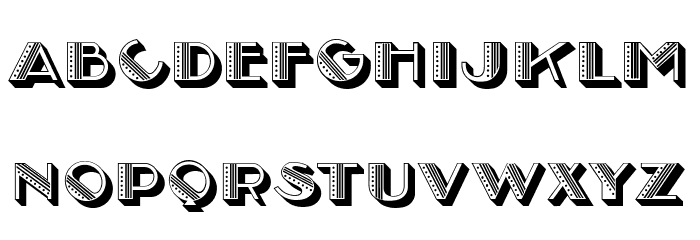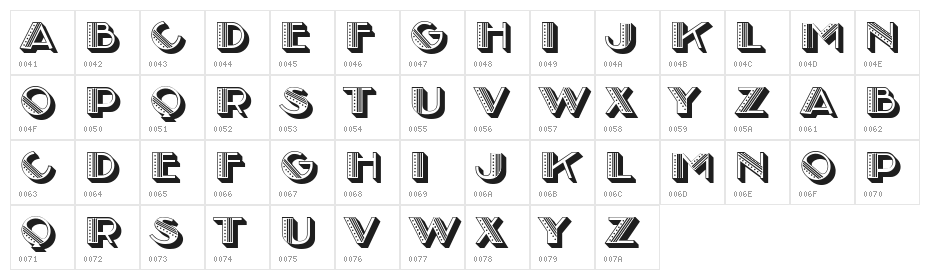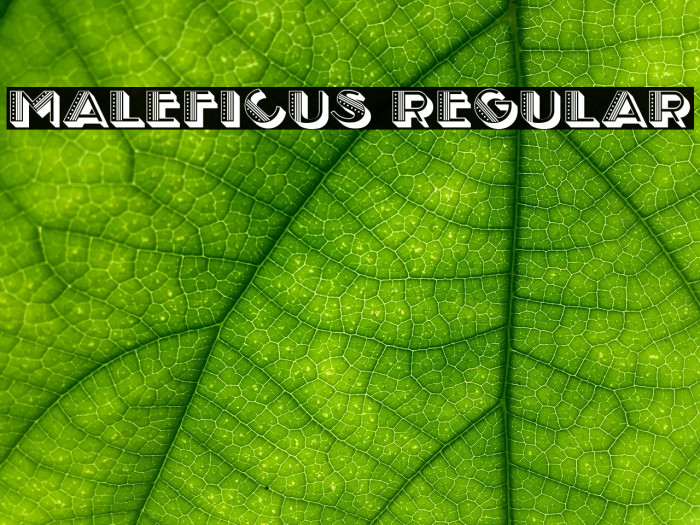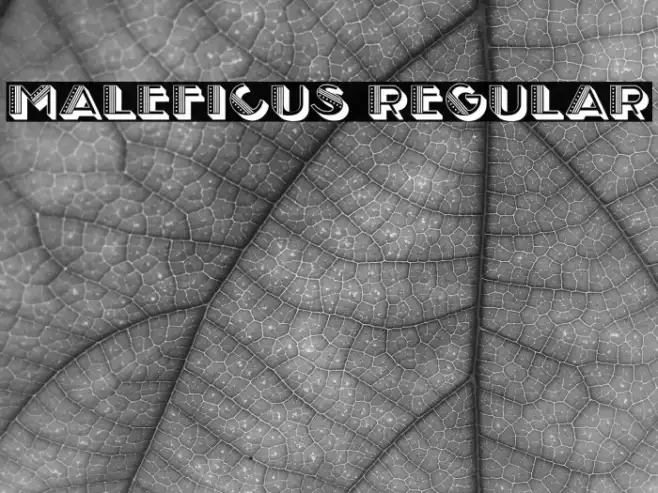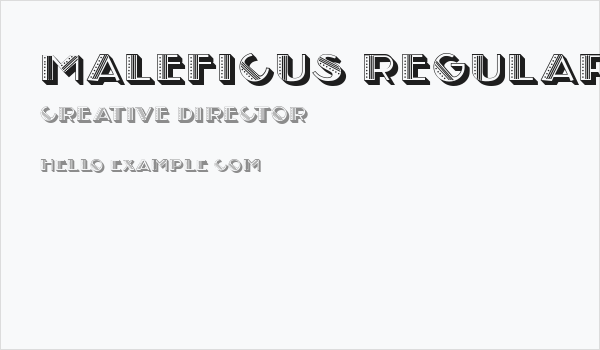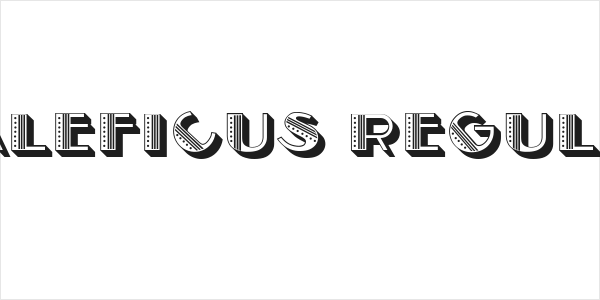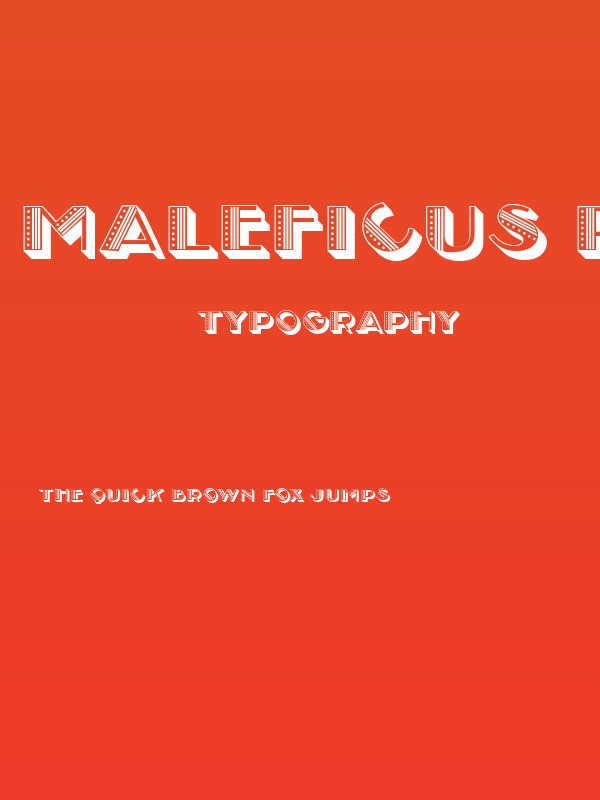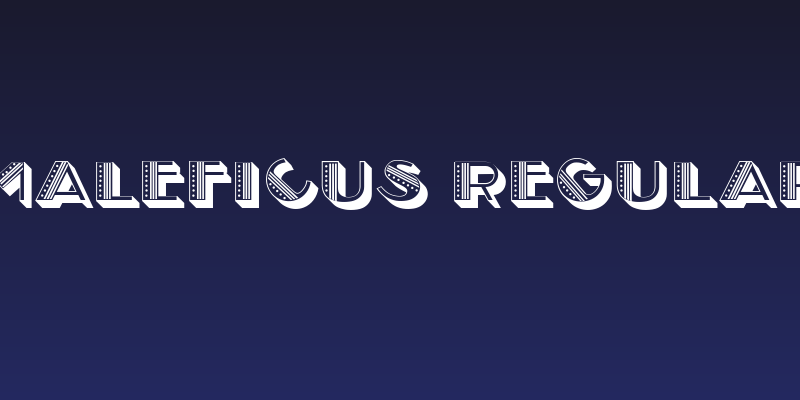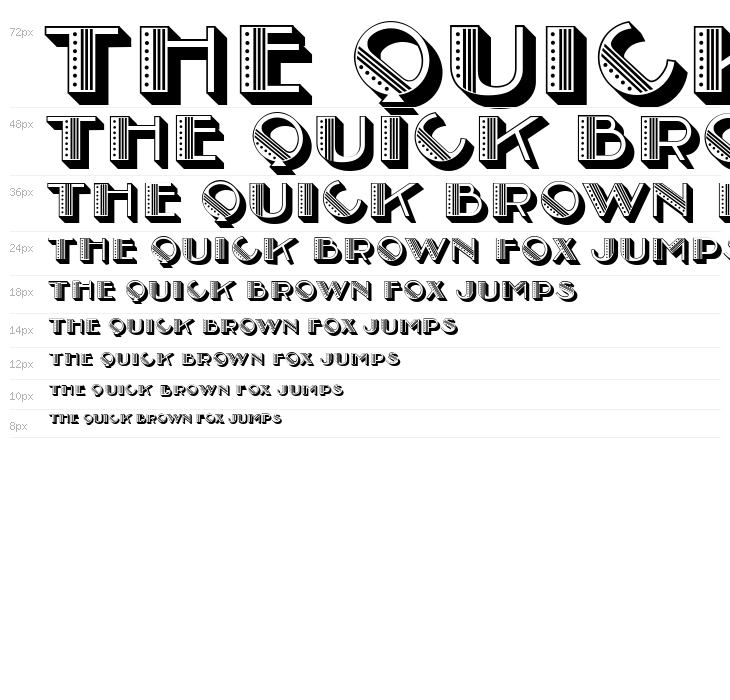
Maleficus Regular Font
Maleficus Regular Description
This font features a bold, decorative style with a three-dimensional effect. The characters are uppercase with a shadow that gives them depth and a sense of movement. Each letter is adorned with intricate patterns, including stripes and dots, adding a playful yet sophisticated touch. The font's design is reminiscent of vintage signage or circus posters, making it ideal for projects that require a bold statement. Its unique style captures attention and adds a dynamic element to any design.
| Proposed Projects | Ideal for posters, logos, headlines, and any design needing a vintage or playful touch. |